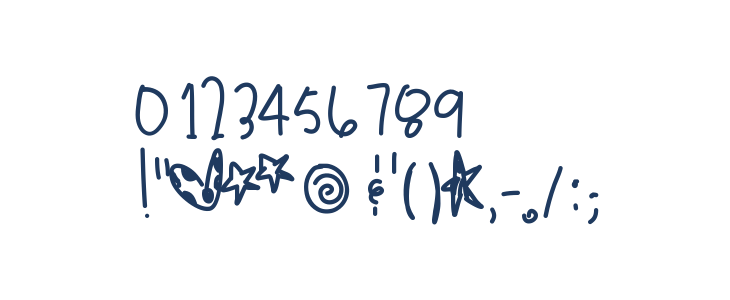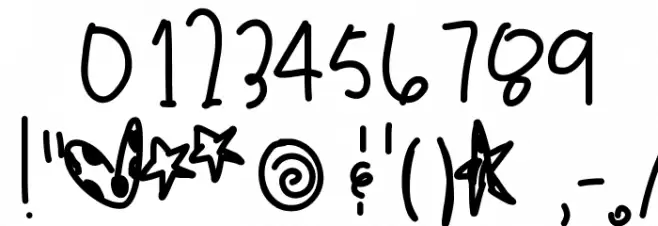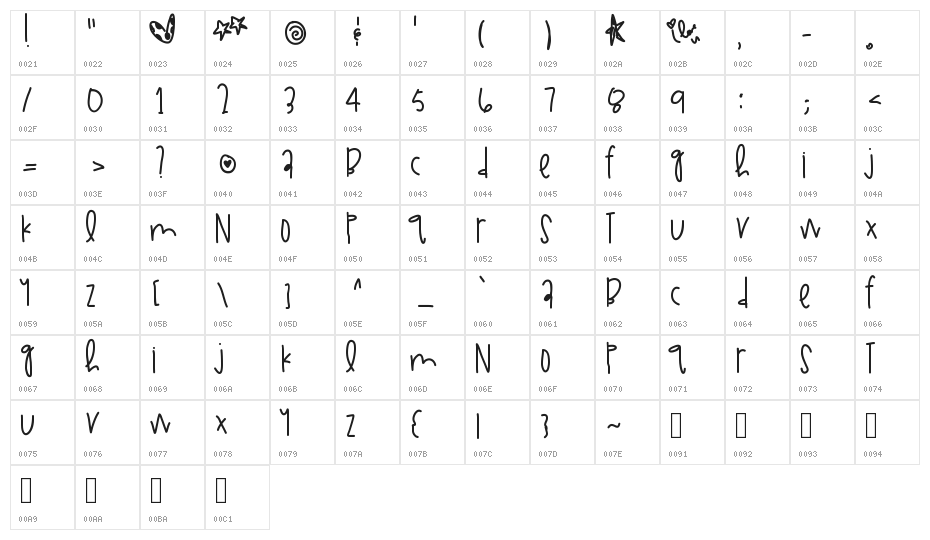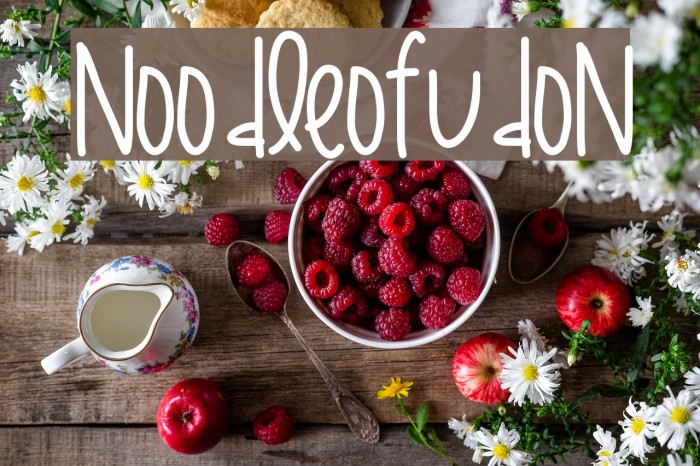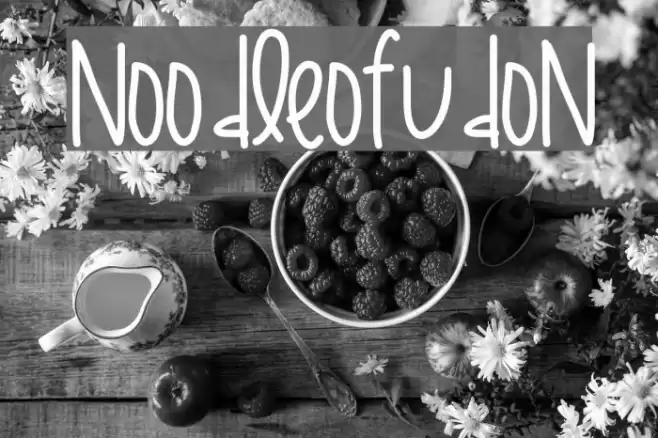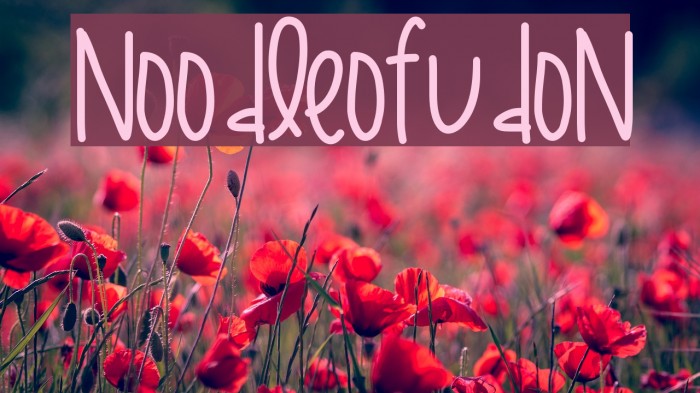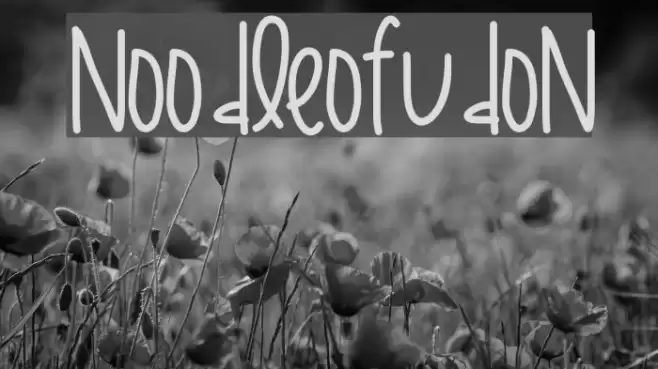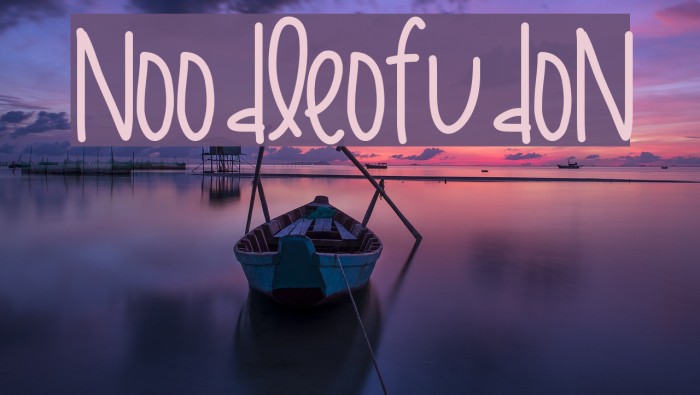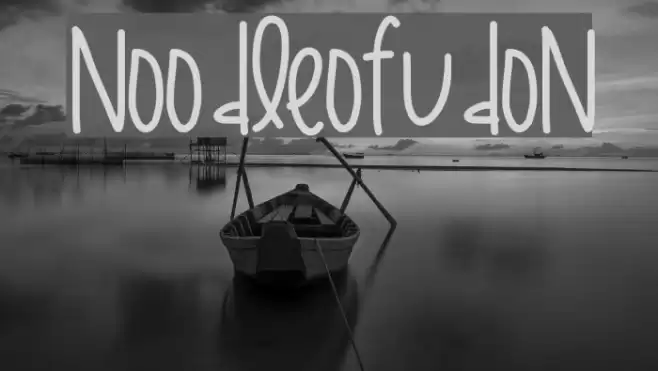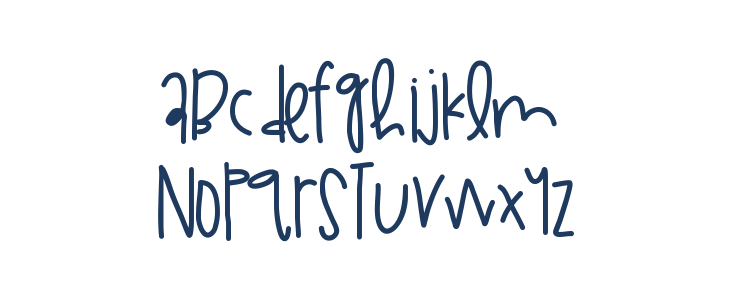
NoodleOfUdon Font
NoodleOfUdon Description
This playful and whimsical font features a handwritten style with a casual and informal appearance. The letters are characterized by their uneven strokes and slightly irregular shapes, giving them a lively and dynamic feel. The uppercase and lowercase letters maintain a consistent style, with rounded edges and a friendly demeanor. The numbers and special characters complement the alphabet with similar playful curves and loops. This font exudes a sense of fun and creativity, making it ideal for projects that require a personal touch.